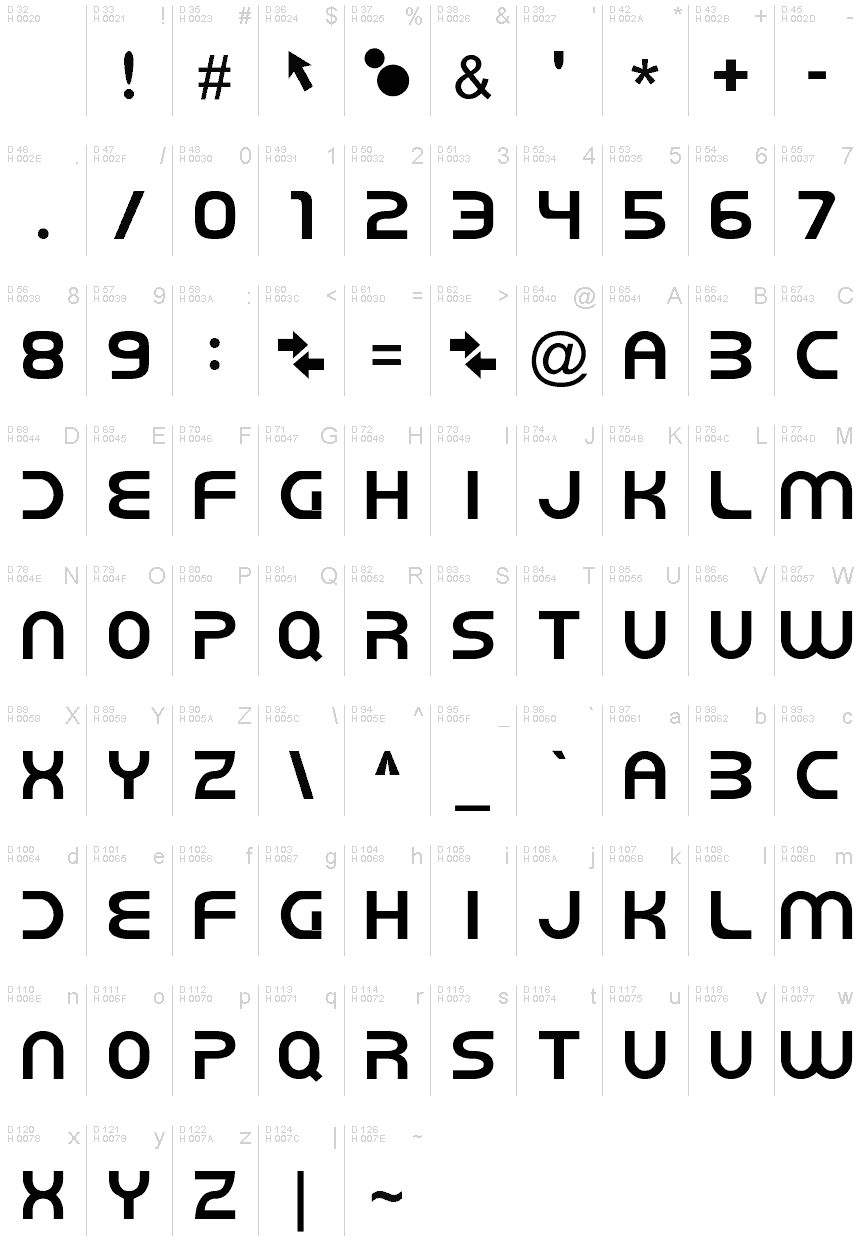
New World Vibes
New World Vibes is a captivating display font designed by Timour Jgenti. Its futuristic aesthetic, characterized by an expanded width and sleek, angular shapes, evokes a sense of modernity and technological innovation. The font's distinctive letterforms and bold presence make it a standout choice for attention-grabbing headlines, impactful branding, and eye-catching digital interfaces.
New World Vibes' versatility extends beyond its visually striking appearance, making it a compelling option for a wide range of design applications, from editorial layouts to product packaging, where a touch of futuristic flair is desired.